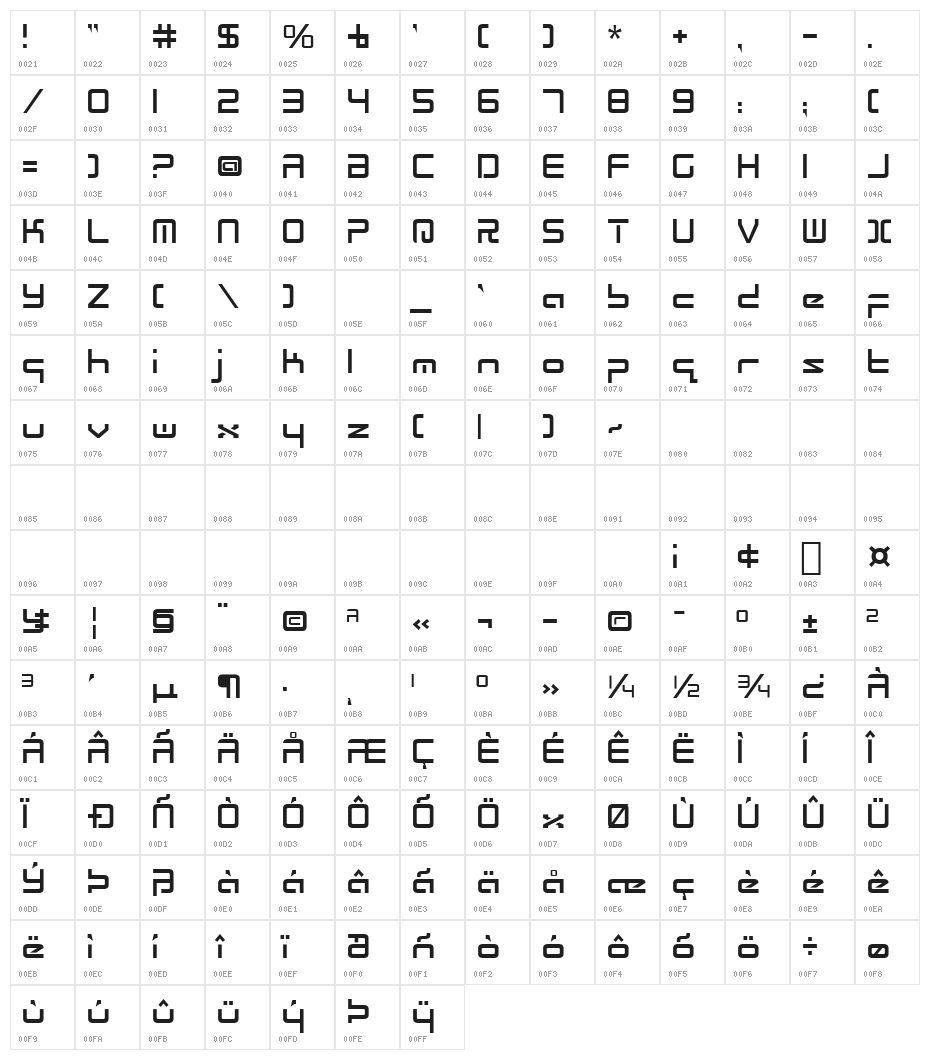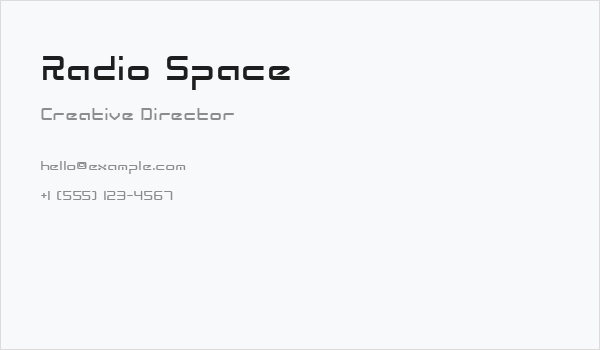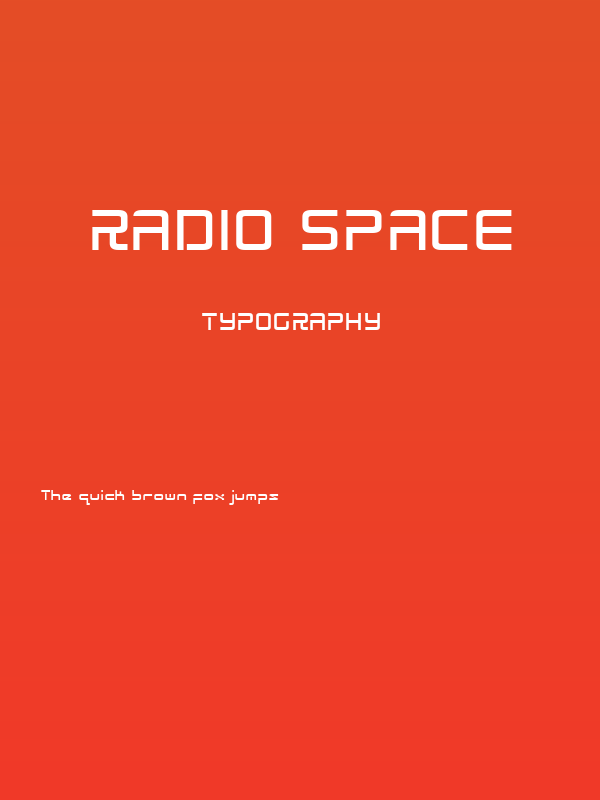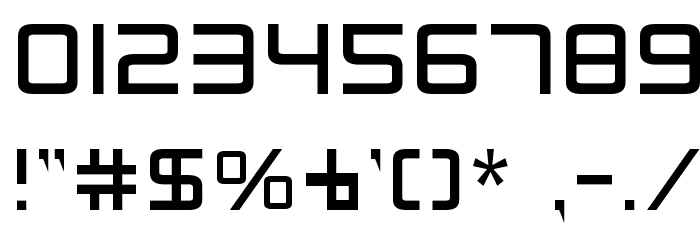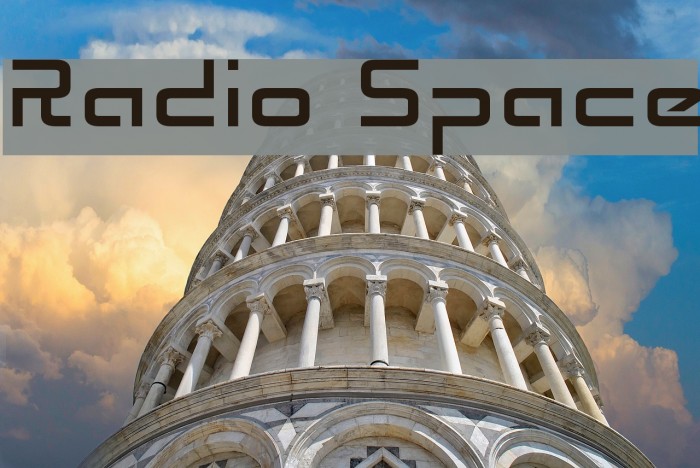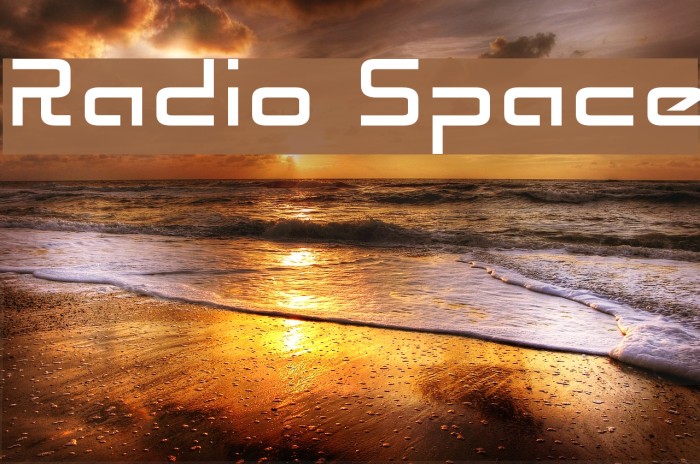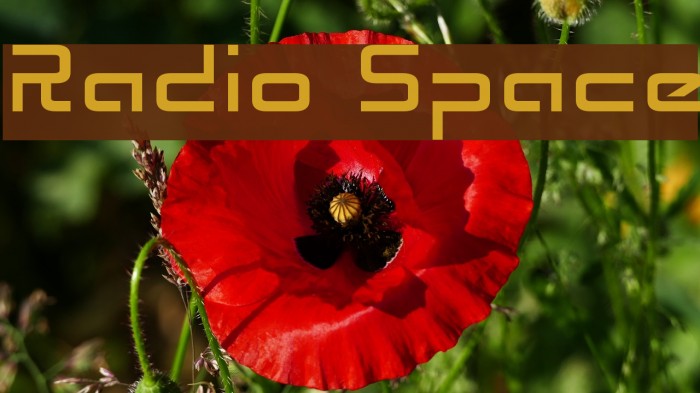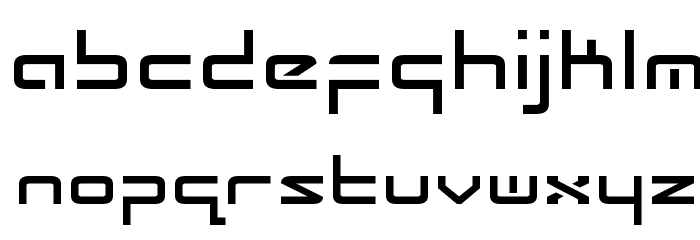
Radio Space Font
Radio Space Description
This font features a futuristic and geometric design with clean, straight lines and rounded corners, giving it a modern and technological appearance. The uppercase and lowercase letters maintain a consistent height, contributing to a uniform look. The numerals are distinct and align well with the overall style, making them easily readable. Special characters are designed to match the font's sleek and minimalistic aesthetic. The font's structure is well-suited for digital and tech-related projects, offering a contemporary feel that is both stylish and functional.
| Use Case | Headlines, Logos, Digital interfaces |
| Proposed Projects | Ideal for tech branding, digital interfaces, video game design, and futuristic-themed projects. |